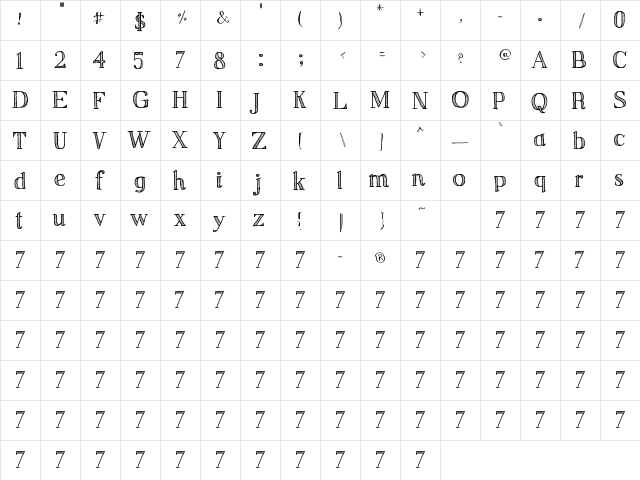
Sketch Serif Regular
| Designer | Galdino Otten |
Design Context for Sketch Serif Typeface
Sketch Serif brings classic typographic sensibility to the table — its serifs and measured letterforms reflect centuries of print heritage.
Pro Tip: Use Sketch Serif for editorial body copy and considered headline work. Pair with a neutral sans for UI elements or captions to create a classic hierarchy.